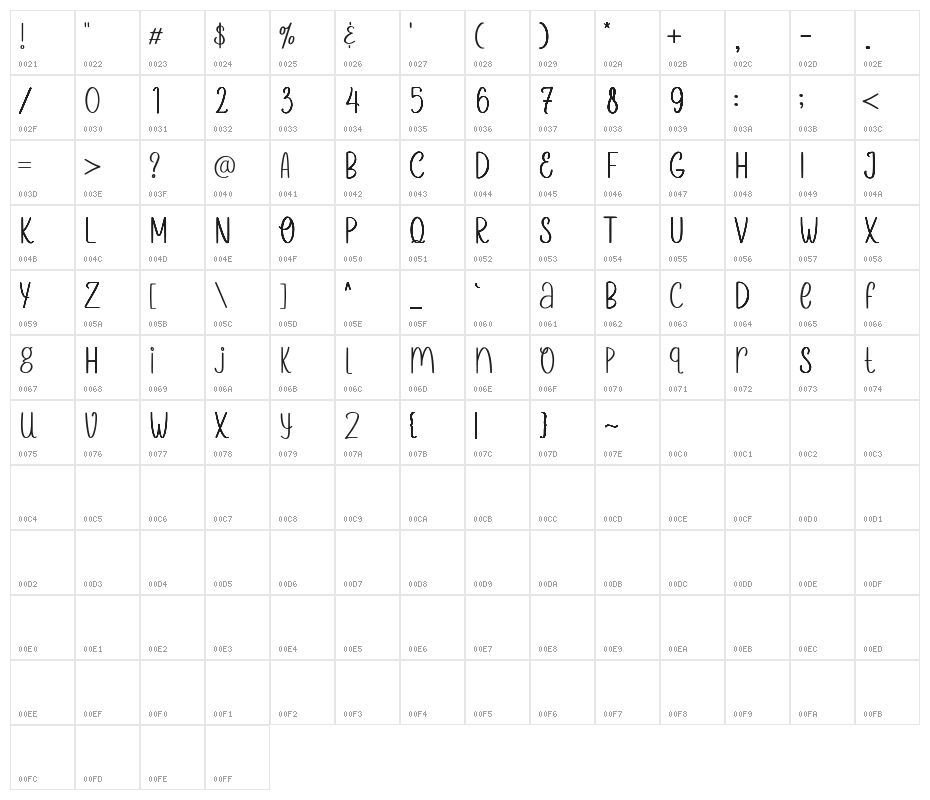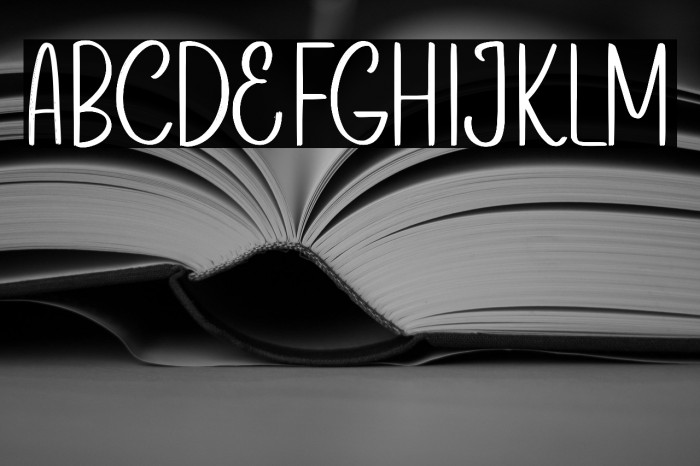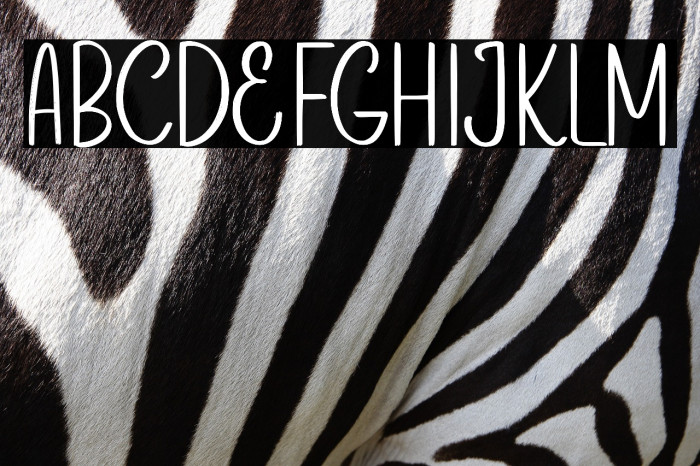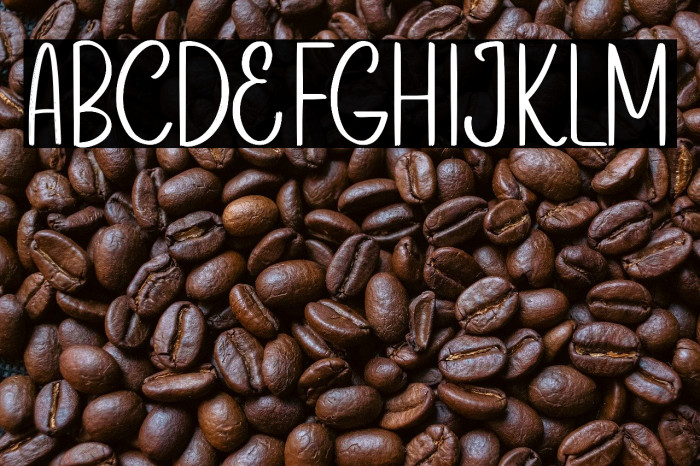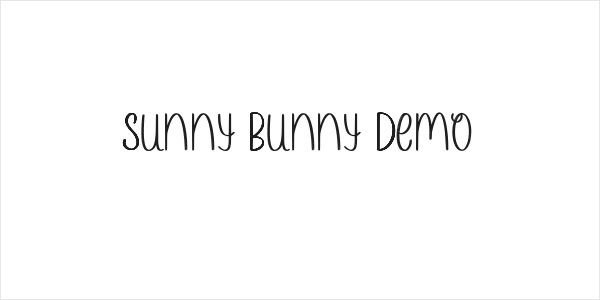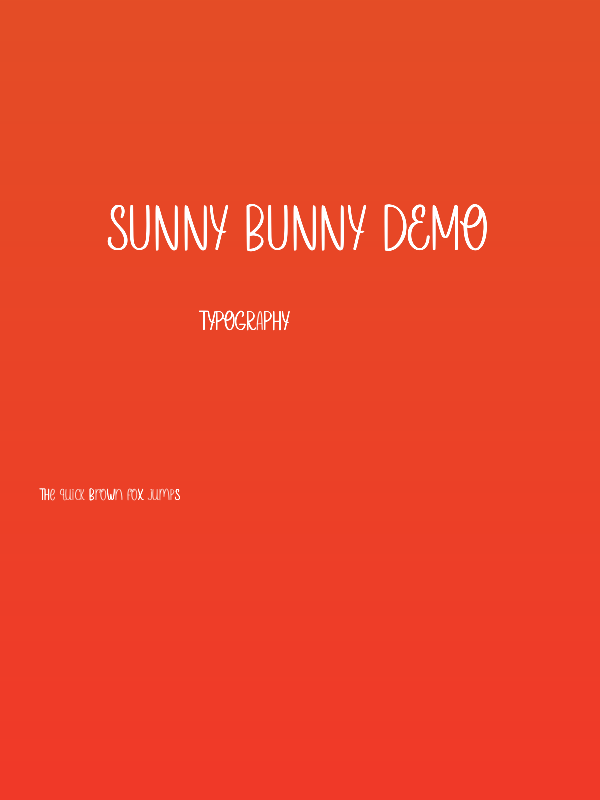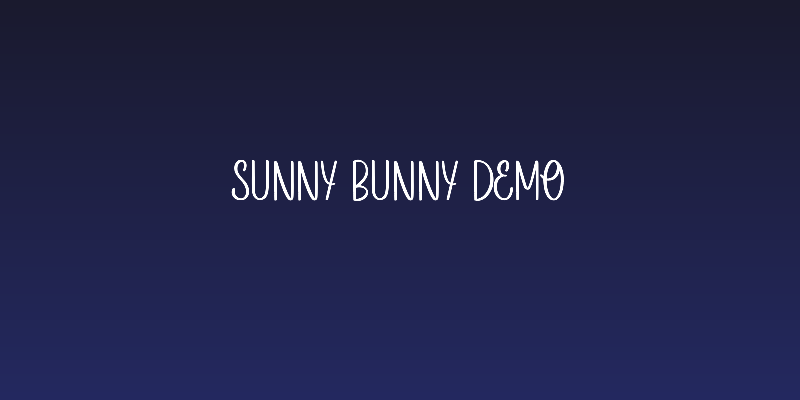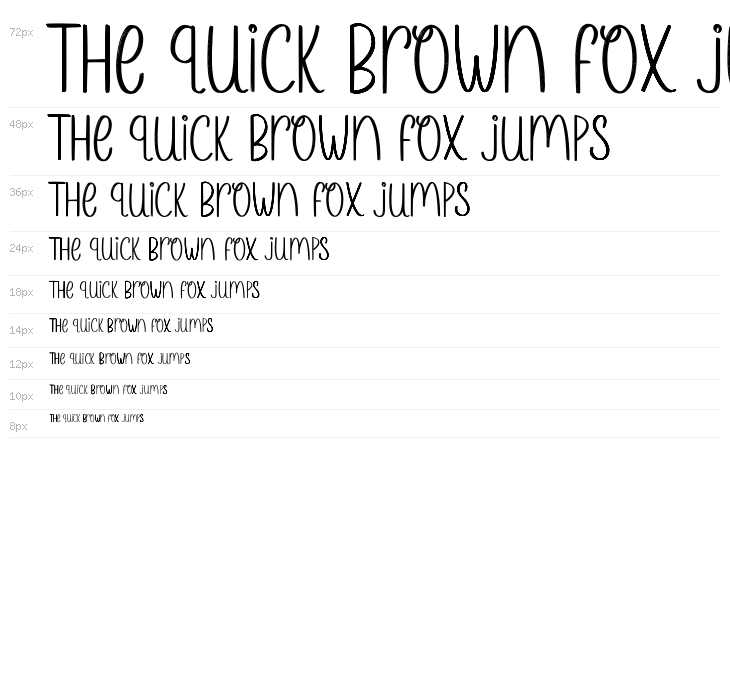
Sunny Bunny Demo Font
Sunny Bunny Demo Description
This playful and whimsical font features tall, narrow letters with a hand-drawn aesthetic. The characters have a consistent stroke width, giving them a clean and modern look. The uppercase letters are slightly taller than the lowercase, adding a touch of elegance. The font includes a full set of numerals and a variety of special characters, making it versatile for different uses. Its informal style is perfect for projects that require a friendly and approachable feel. The rounded edges and smooth curves contribute to its overall charm, making it suitable for children's books, greeting cards, and playful branding.
| Proposed Projects | Ideal for children's books, greeting cards, playful branding, and casual invitations. |